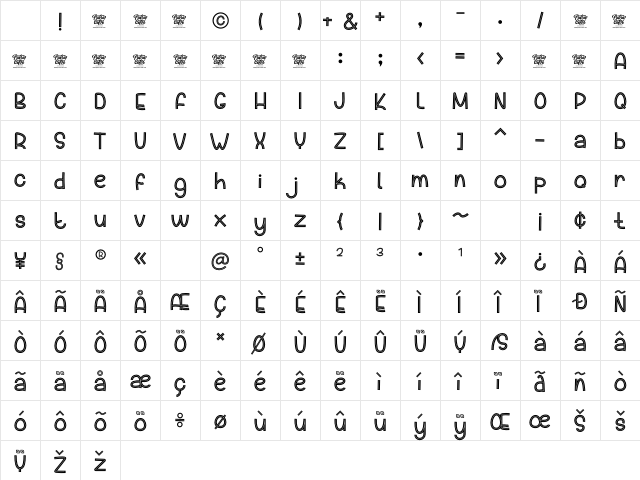
Complete Bicycle Track Regular glyph index. Displaying only characters natively supported by Bicycle Track Regular font.
Bicycle Track is a composed and adaptable typeface that performs quietly and consistently across a wide range of design contexts.